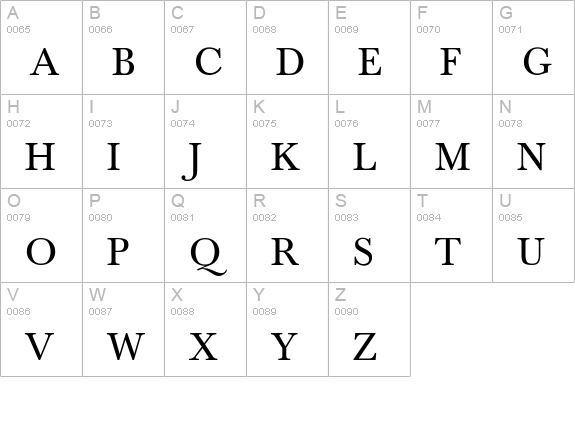
Hounds Font Details
The Hounds font is a striking and versatile typeface that exudes a sense of power and elegance. With its bold lines and sharp angles, this font is perfect for making a statement in any design project. Whether you're creating a poster, logo, or website, Hounds will add a touch of sophistication and style. What makes the Hounds font even more appealing is that it is completely free to download. You can get your hands on this stunning typeface at FontsMarket.com and start using it in your projects right away. Don't miss out on the opportunity to elevate your designs with the Hounds font - download it now and make a bold statement with your typography.